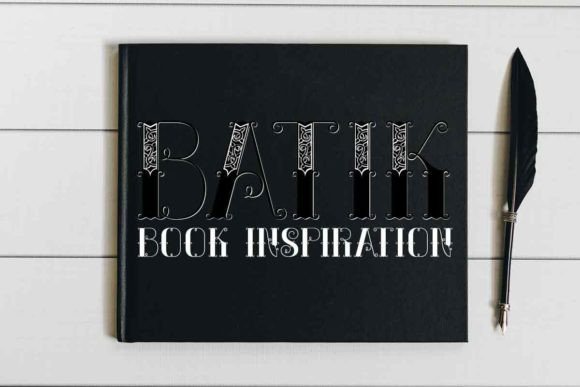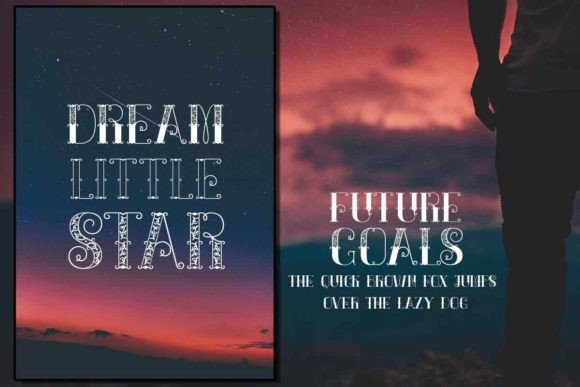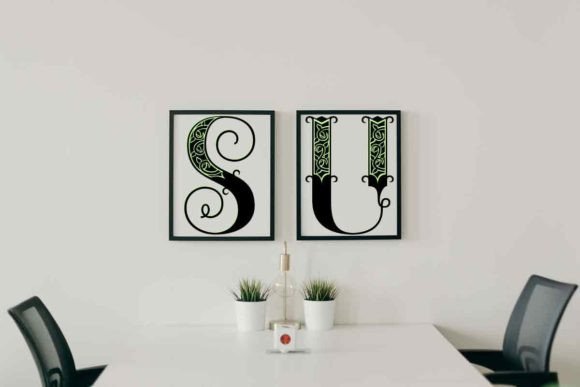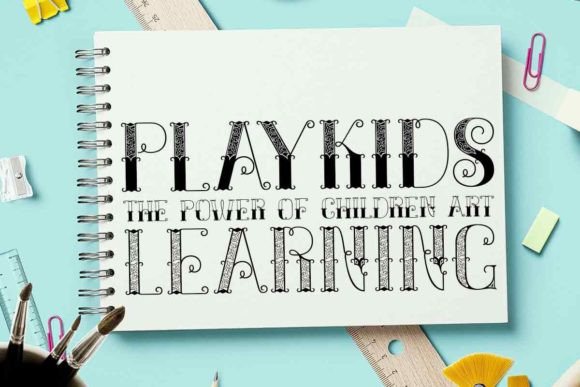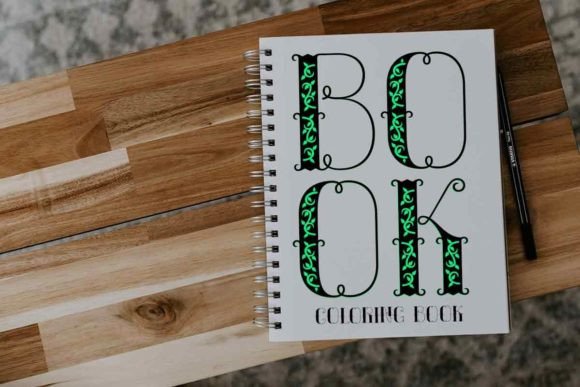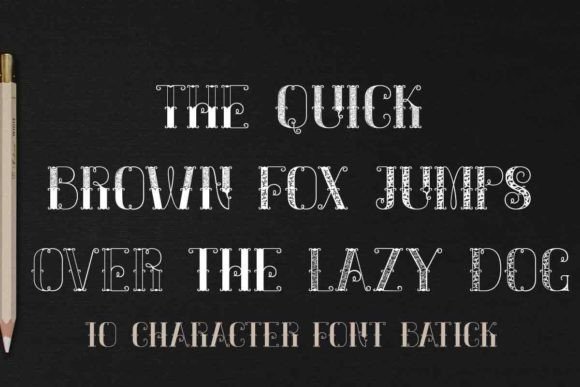
Introduction to Batick Font
Batick is a cute and sophisticated decorative font with carvings and very beautiful shapes.
This font is perfect for creative designs, coloring books, or anything that requires impressive typography .